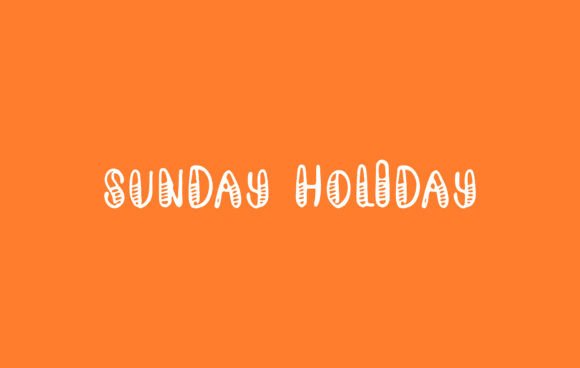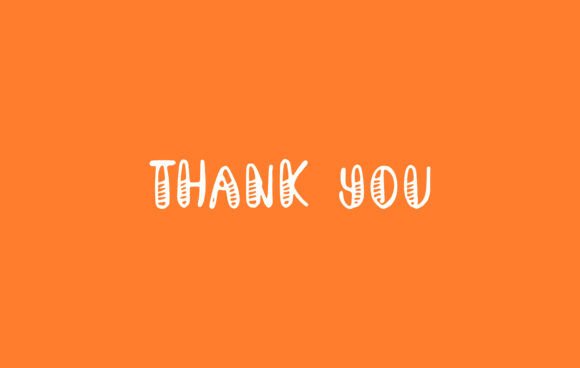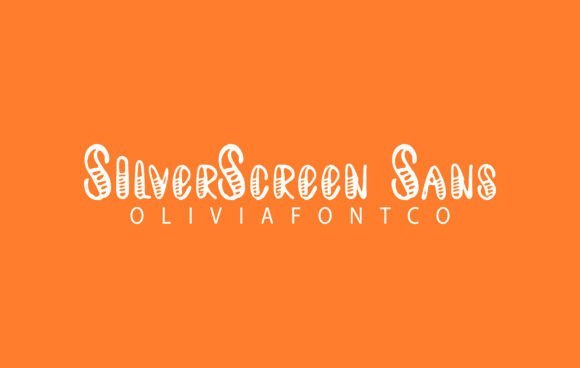
Silverscreen Sans is a lively hand-drawn sans serif font with a cinematic flair.
Featuring playful strokes and textured accents, it’s perfect for children’s books, whimsical branding, greeting cards, and crafty packaging .